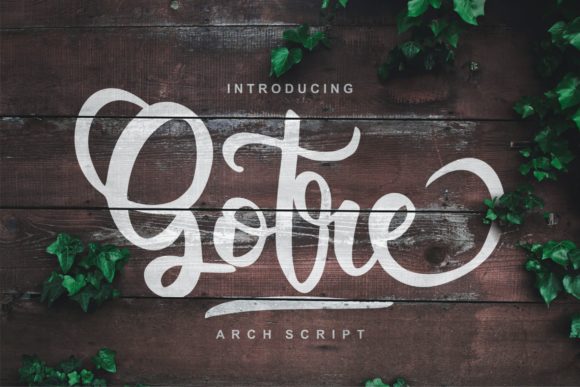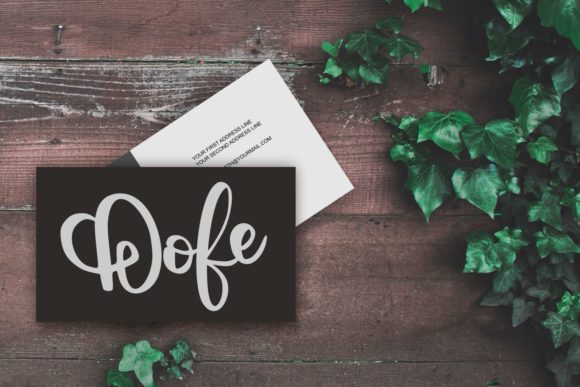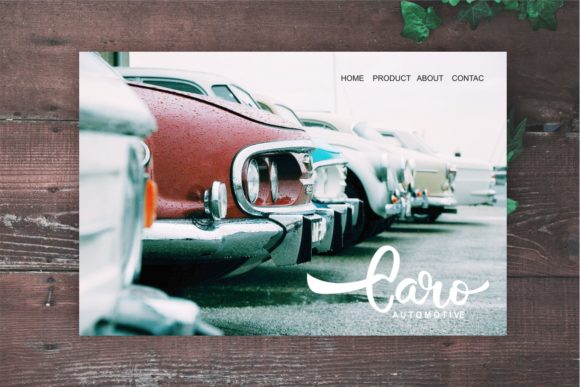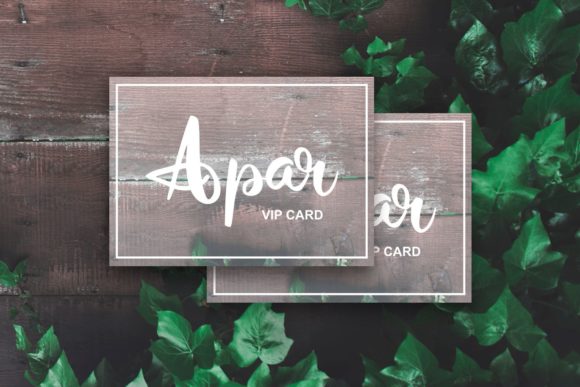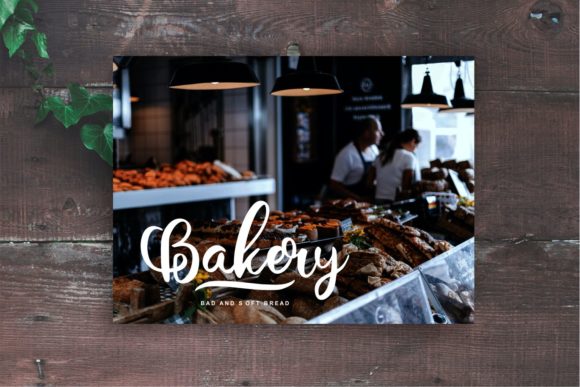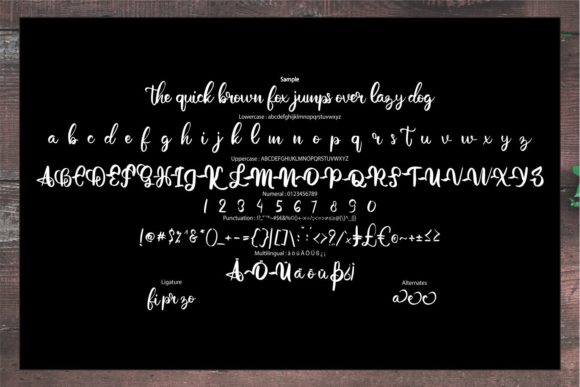
HomeScript FontsGotre Font Script Fonts Gotre Font FacebookXPinterestWhatsApp Gotre Font Poster 2 Gotre Font Poster 3 Gotre Font Poster 4 Gotre Font Poster 5 Gotre Font Poster 6 About Gotre Font Gotre is a unique and swashy script that’s great for adding an extra touch of charm to your designs. DOWNLOAD ON CREATIVE FABRICAThis font is sold and delivered by Creative Fabrica. Font Canyon may earn a commission if you buy through this link. People also explored Marsttar Font Strong Dreams Font Rossa Sebian Font Candreeva Font Candy Canes Font Winteradiva Font Medusa Font Moegham Font Happy Monday Font 367 0 TagsGotre Font Previous articleStandberg FontNext articleMalika Font LEAVE A REPLY Cancel reply Comment: Please enter your comment! Name:* Please enter your name here Email:* You have entered an incorrect email address! Please enter your email address here Website: Save my name, email, and website in this browser for the next time I comment. Personal Use Free Mika Personal Use Free Read more about this font Arabella Script Personal Use Free Read more about this font Short Message Personal Use Free Read more about this font Krase Personal Use Free Read more about this font BLOG 5 Fonts That Will Dominate Design Trends in 2026 5 Fonts for 2026 That Will Dominate Design Trends Typography plays a critical role in visual communication, and as we look ahead to 2026, itβs... The 10 Best Handwriting Fonts to Add Personality to Your Designs Elegant Wedding Invitation Fonts β Handwritten & Script Fonts Top 7 Google Fonts Alternatives for Faster and Privacy-Friendly Web Design (2025)